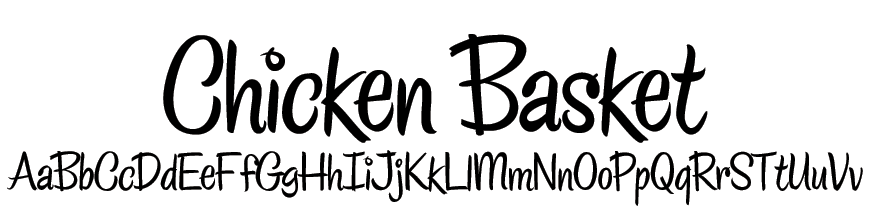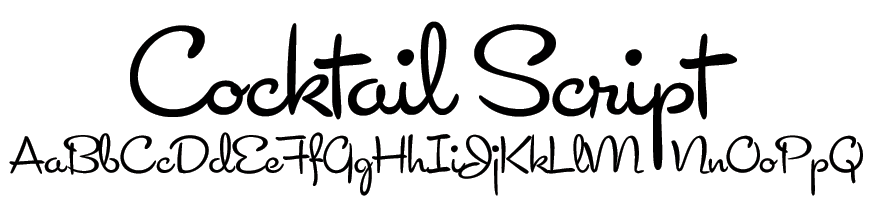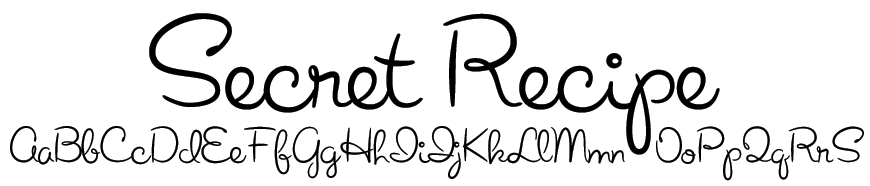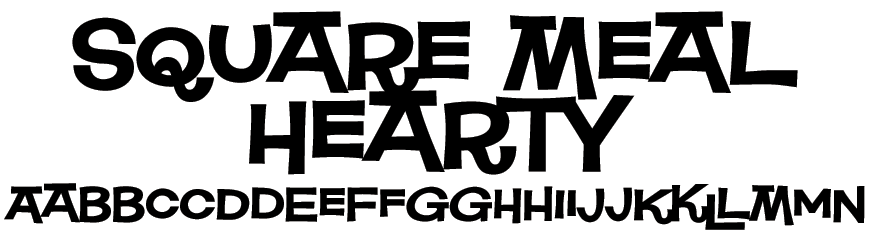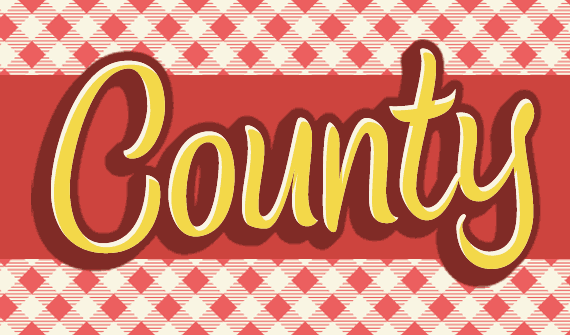
Yee Haw! Time to grab your County Fair Picnic Font Set! Enjoy 1950s Americana with this wonderful range of font styles ranging from elegant scripts to playful display styles inspired by vintage food packaging!
County Fair Picnic Font Set
Includes 12 Fonts